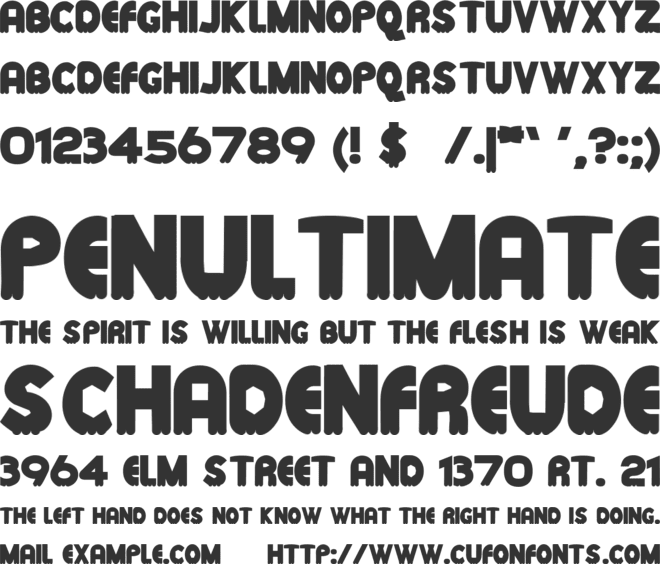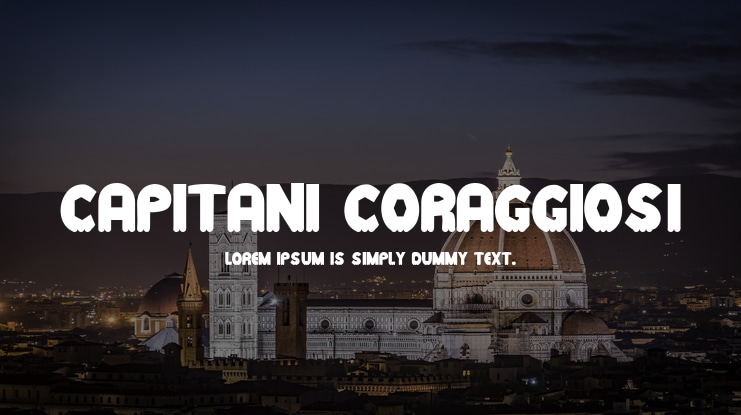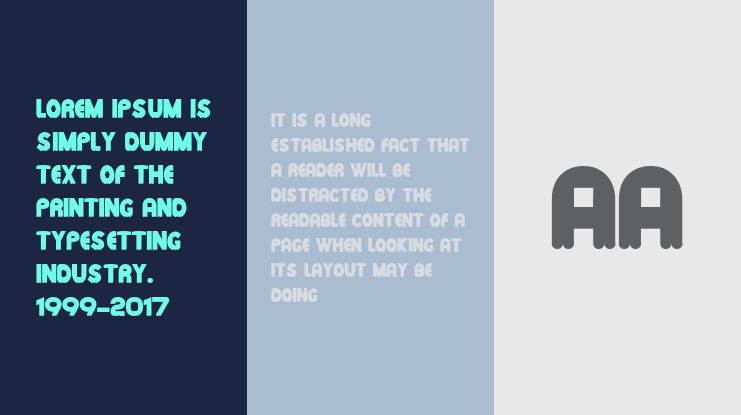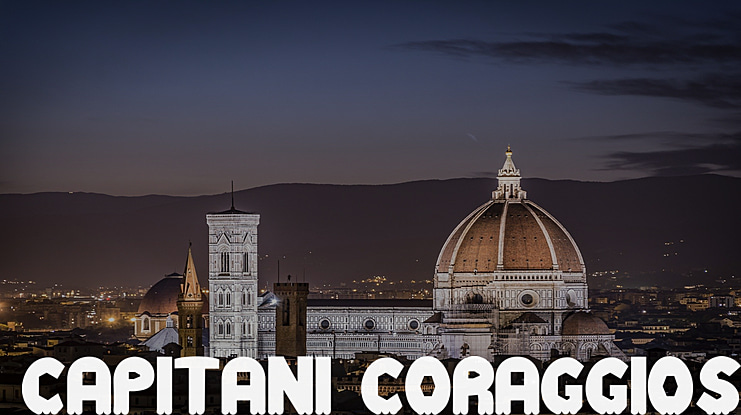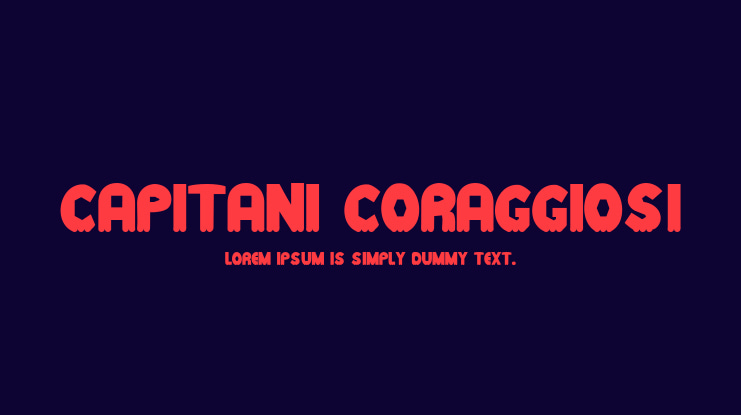
CApitani Coraggiosi Font
P. A. Vasnnucci
Directly from the film directed by Victor Fleming and starring Spencer Tracy, the new font for all fans of the film.
Direttamente dal film diretto da Victor Fleming e interpretato da Spencer Tracy, il font inedito per tutti gli estimatori del film.